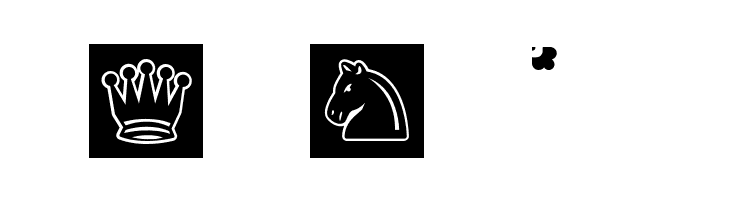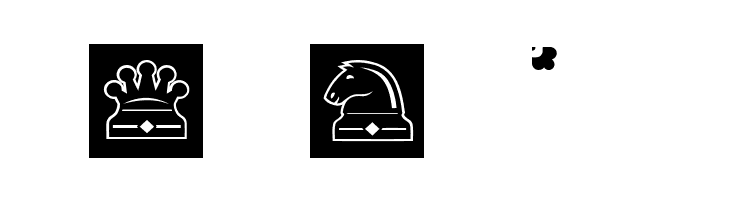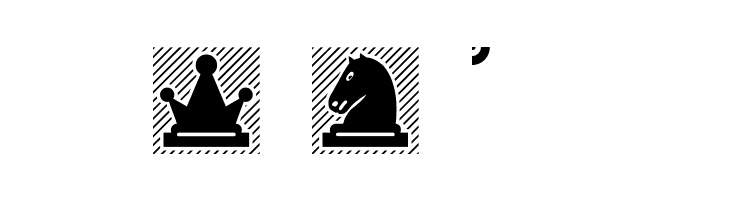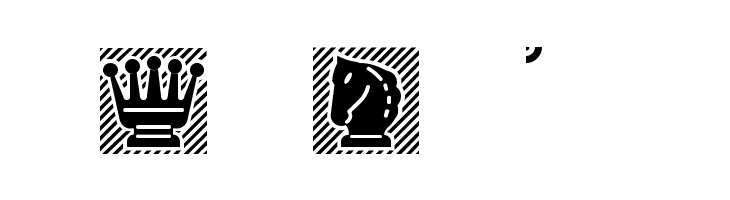
A chess-themed icon font with bold, geometric piece designs.
A set of chess piece symbols with bold outlines for clarity.
A collection of stylized chess piece symbols for digital and print use.
Chess-themed icon font with bold, geometric chess piece illustrations.